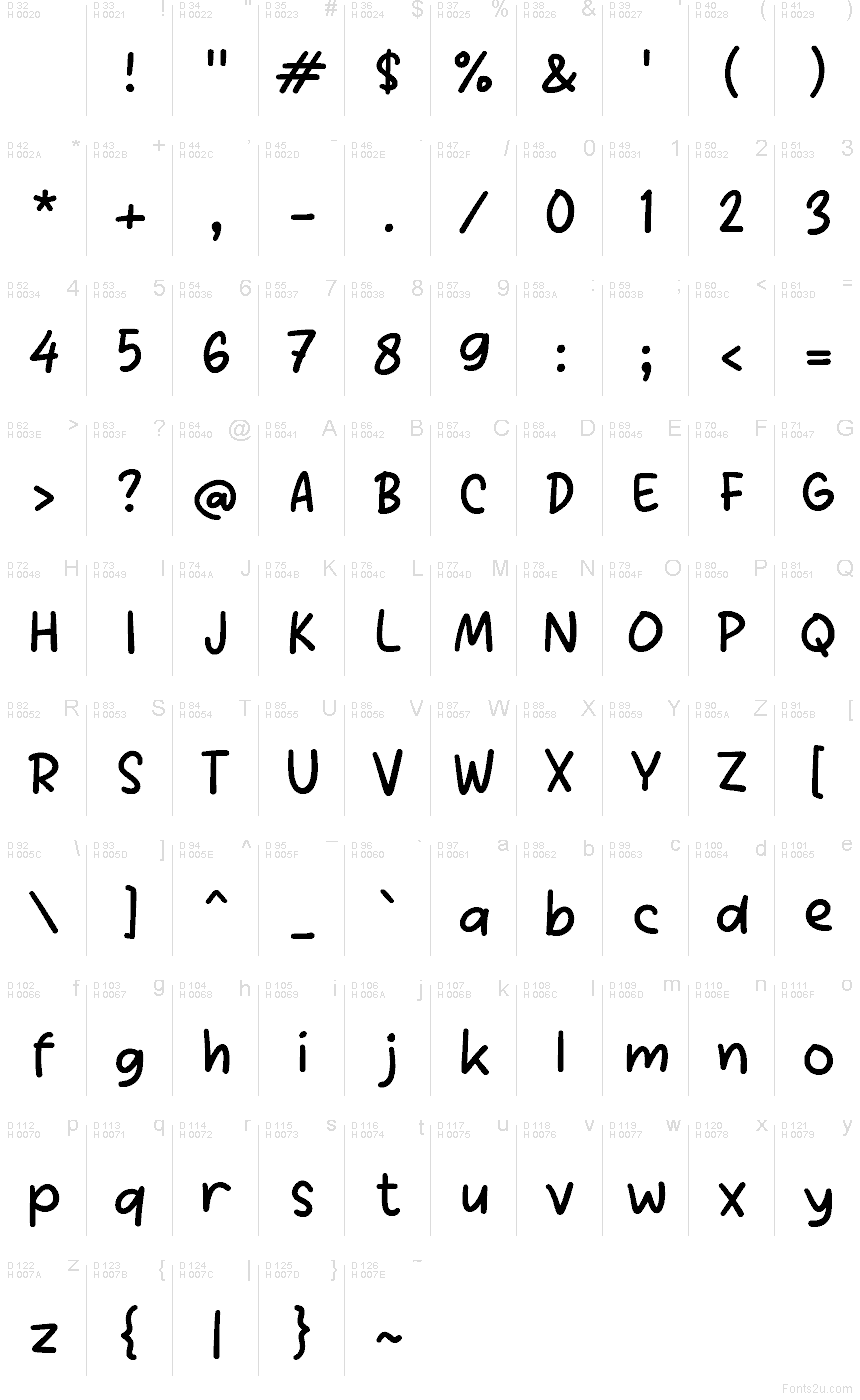
Pabuse
Pabuse font by wepfont.com is a free handwritten font that finally gives you casual warmth without sacrificing clarity. Its rounded strokes, even rhythm, and gentle bounce feel like friendly marker lettering on a whiteboard—easy to read at a glance, even in longer lines of text. There’s just enough wobble to feel human, but the consistent spacing keeps layouts neat rather than messy or childish.
Using Pabuse, you can bring approachable energy to kids’ worksheets, classroom posters, recipe cards, social posts, product labels, and informal brand touchpoints. This free typeface shines when you want handwriting that feels personal yet organized, especially at medium sizes where its smooth curves really show. Pair Pabuse with a simple sans-serif for body copy and use Pabuse for headings, notes, and accents to keep things playful but still professional.